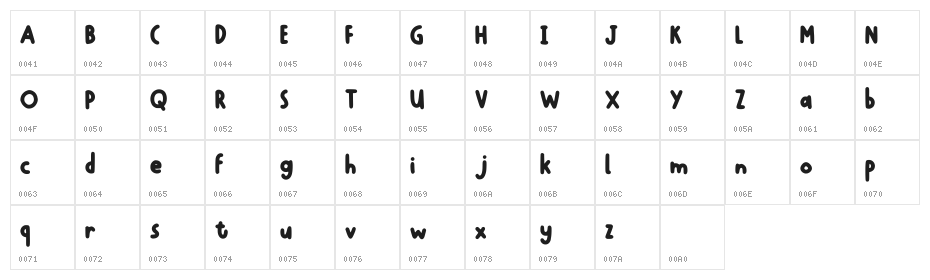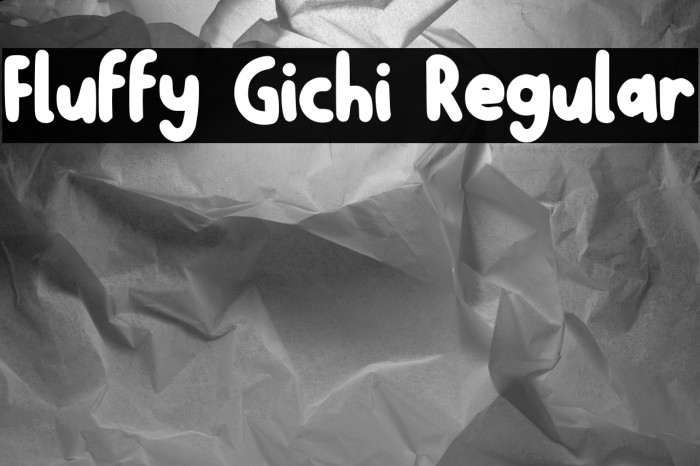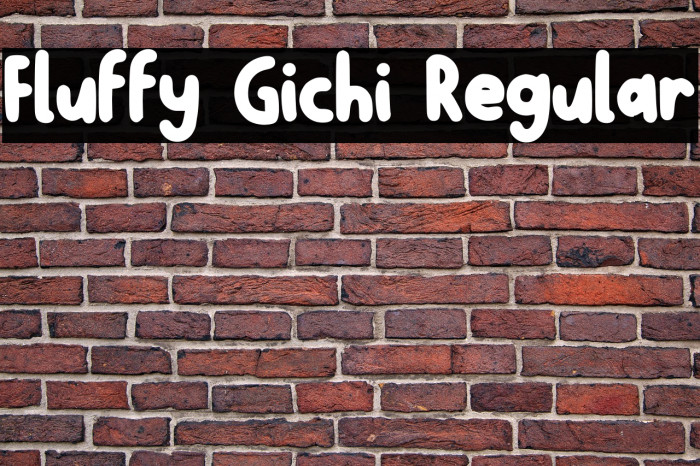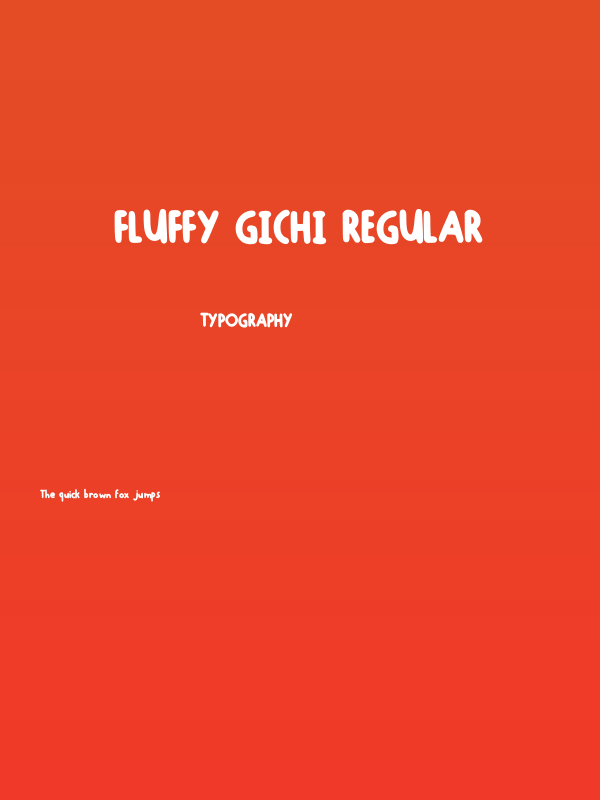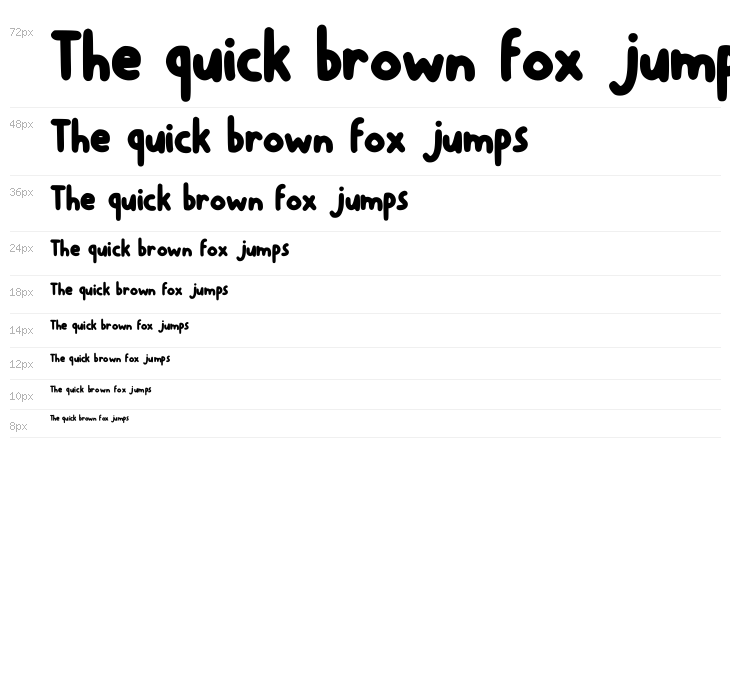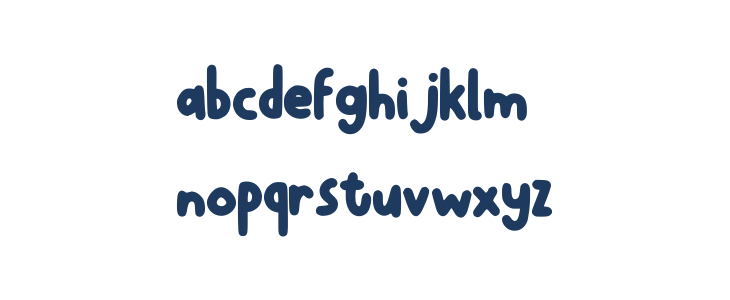
Fluffy Gichi Regular Font
Fluffy Gichi Regular Description
This playful and whimsical font features rounded, bubbly characters that convey a sense of fun and friendliness. The strokes are thick and consistent, giving it a bold appearance while maintaining a soft, approachable feel. The letters are evenly spaced, ensuring readability while adding a touch of charm. Its unique style is perfect for projects that require a lighthearted and informal tone. The font's design is versatile, making it suitable for a variety of creative applications.
| Proposed Projects | Ideal for children's books, playful branding, party invitations, and casual social media graphics. |